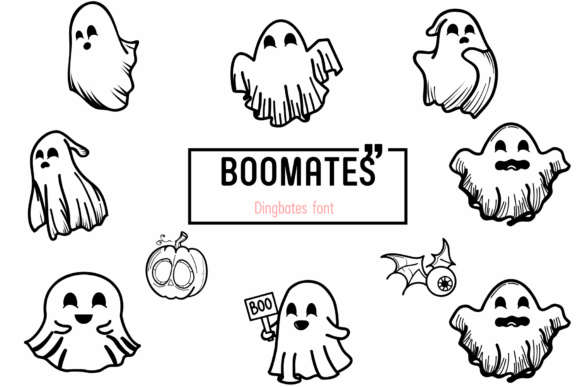
The Spooky Charm of Boomates Font
Do you remember the excitement of rummaging through your grandmother’s attic, uncovering old trunks and mysterious boxes filled with forgotten treasures? It’s that same thrill of discovery that drives creatives to search for the perfect font to bring their projects to life. For designers and crafty enthusiasts, finding the right font can be a game-changer.
Enter the Boomates Font, a delightful dingbats font with a spooky theme that’s perfect for adding a touch of whimsy to your creative projects. Whether you’re designing wedding invitations, crafting decorations, or creating logos, this font is sure to captivate your audience. With its unique and playful design, Boomates Font is a valuable addition to any designer’s toolkit.
- Unique Characteristics: This font features a unique blend of modern and vintage elements, with a distinctive ‘hand-drawn’ feel that sets it apart from other fonts.
Boomates Font Review
Overall, I found the Boomates Font to be a decent addition to any design project, but it’s not without its flaws.
- The font has a unique and playful feel that’s perfect for creative projects.
- The bold and italic versions of the font are well-designed and add a lot of depth to the overall typeface.
- The font is highly legible, even at small sizes, making it suitable for a wide range of applications.
- The font’s design is a bit inconsistent, with some letterforms feeling overly simplified or awkward.
- The font lacks a clear direction or cohesive style, making it difficult to use in projects where consistency is key.
- The font’s support for non-English languages is limited, which may be a problem for designers working on international projects.
While the Boomates Font has its strengths, its limitations hold it back from being a truly great font. It’s still a solid choice for casual projects, but I wouldn’t recommend it for anything that requires a high level of sophistication or consistency.
Tips for Getting the Most Out of Boomates Font
Here are some tips to get the most out of Boomates Font:
- Pair Boomates Font with other fonts to create a unique and visually appealing design.
- Use Boomates Font for headings and titles to add a touch of elegance.
Boomates Font is ideal for:
- Graphic design projects.
- Print materials (e.g., business cards, brochures).
Alternatives to Boomates Font
Boomates Font is a popular font known for its bold and playful style, making it ideal for use in graphic design, signage, and branding. However, designers often seek alternative fonts that can replicate its unique characteristics. Here are a few options:
Great Vibes is a modern script font that shares similarities with Boomates Font in terms of its playful and energetic feel. It’s perfect for use in wedding invitations, event branding, and creative projects that require a touch of whimsy.
Compared to Boomates Font, Great Vibes has a more refined and elegant appearance, making it suitable for a wider range of applications.
Playfair Display is an elegant and luxurious script font that can add a touch of sophistication to any design project. Its flowing lines and intricate details make it an excellent choice for use in high-end branding, magazine layouts, and special occasion invitations.